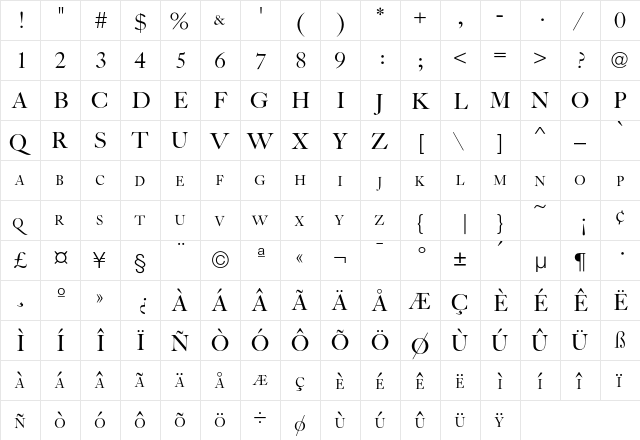
CaslonC437 RomanSmallCaps Font Preview
CaslonC437 RomanSmallCaps
Design Context for CaslonC437 Typeface
CaslonC437 is a composed and adaptable typeface that performs quietly and consistently across a wide range of design contexts.